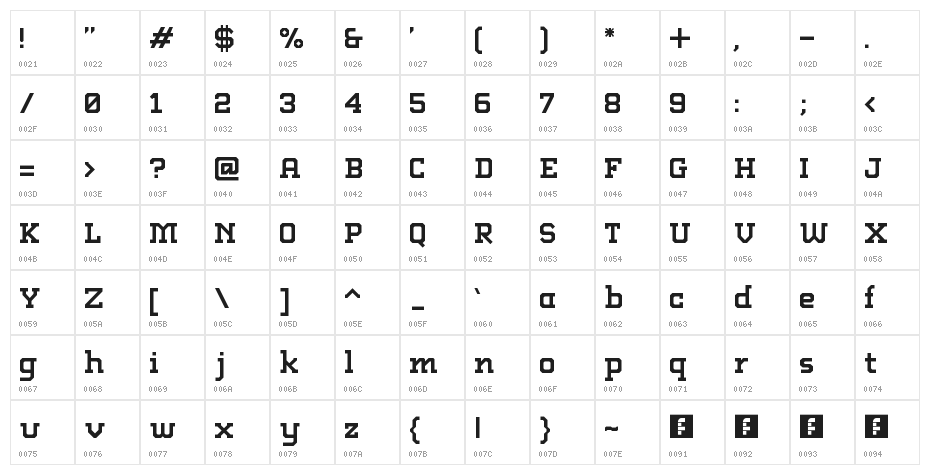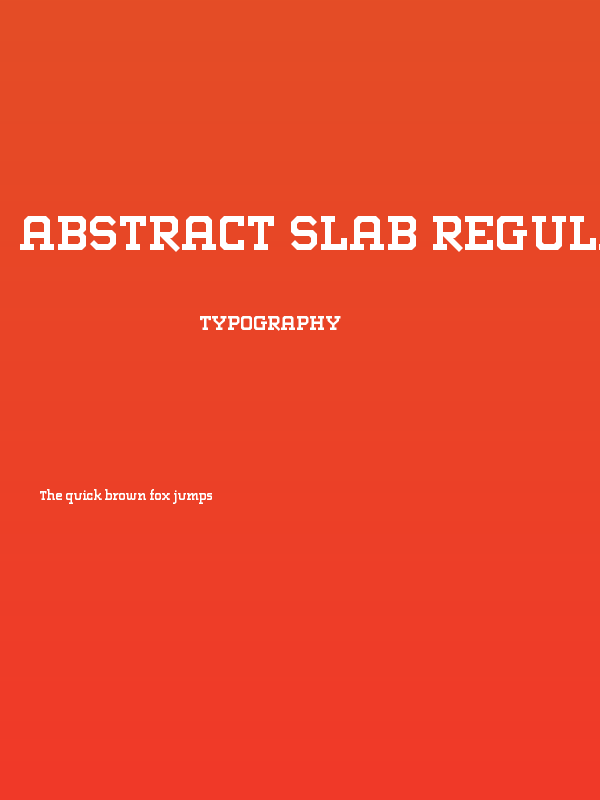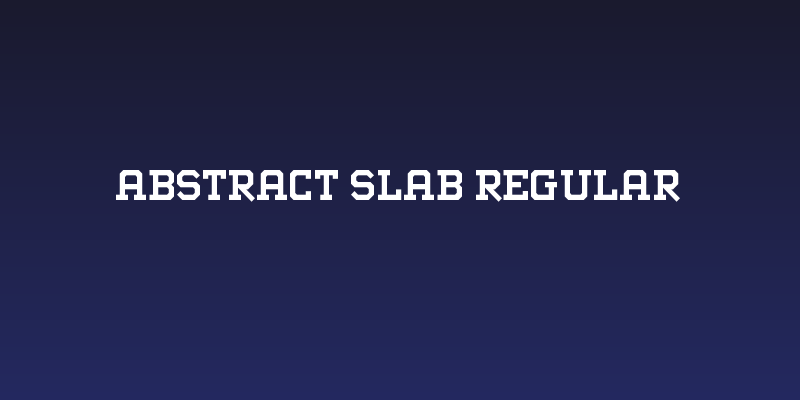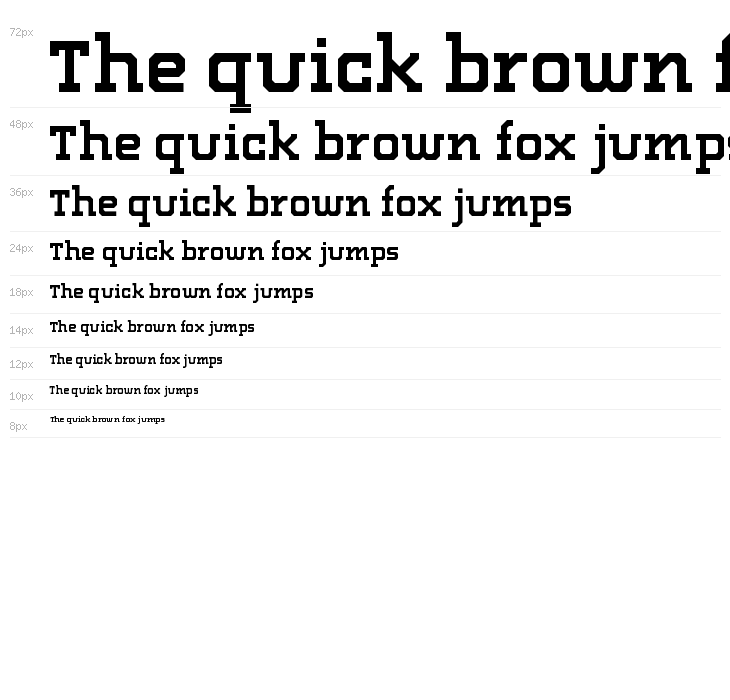
Abstract Slab Regular Font
Abstract Slab Regular Description
This font features a bold and structured design with a slab serif style, characterized by thick, block-like serifs that give it a strong and sturdy appearance. The uppercase and lowercase letters maintain a consistent width, contributing to a uniform and balanced look. The numerals and special characters are designed with the same boldness, ensuring readability and impact. The overall geometric shape of the characters adds a modern touch, while the slab serifs provide a classic feel. This combination makes it versatile for various design applications.
| Proposed Projects | Ideal for branding, headlines, posters, and signage where a strong, impactful presence is needed. |